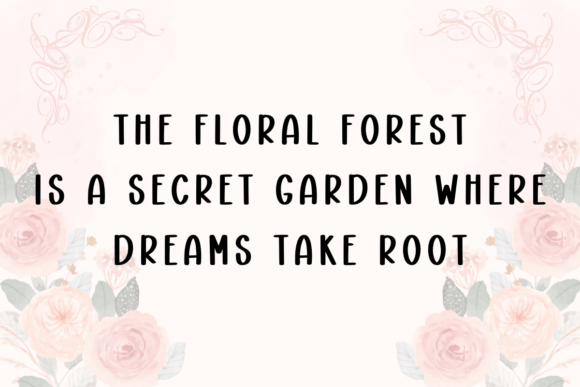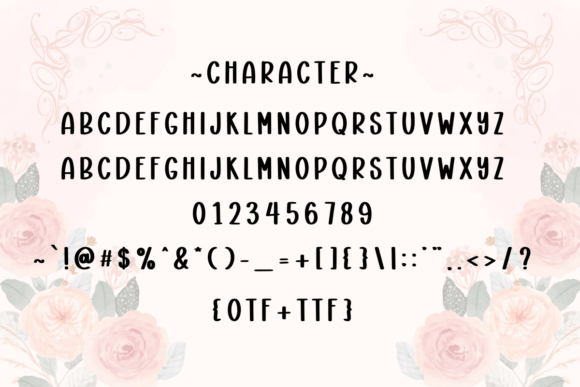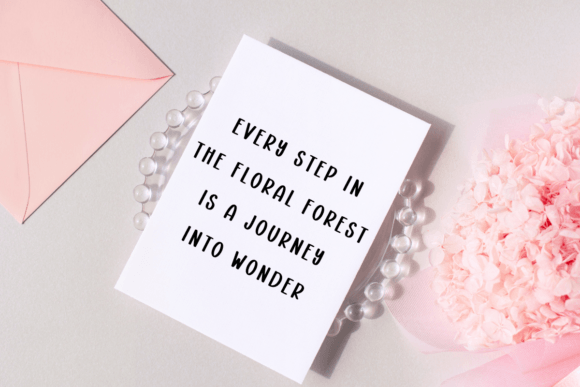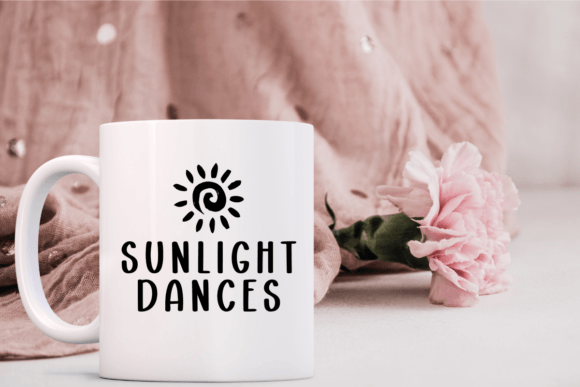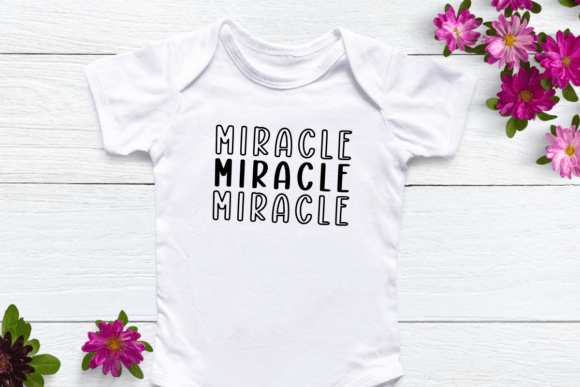
Introduction to Floral Forest Font
As a designer, have you ever found yourself stuck on a project, desperately searching for that one perfect font to bring your vision to life? I know I have! It was on a particularly frustrating afternoon, trying to finalize the design for a client’s new brand, when I stumbled upon the Floral Forest Font. Its unique blend of natural elements and clean lines immediately caught my eye, and I knew I had to learn more.
What I discovered was a high-quality, free download that has since become one of my go-to design resources. The Floral Forest Font is not just a pretty face – it’s a versatile tool that can be used in a wide range of creative projects, from logos and branding to digital art and even wedding invitations. With its transparent background and customizable options, the possibilities are truly endless.
Whether you’re a seasoned pro or just starting out, the Floral Forest Font is an absolute must-have in your design arsenal. Its natural, playful style makes it the perfect addition to any project, and its high-quality design ensures that it will always look professional and polished.
Key Features of Floral Forest Font
- Includes a range of unique floral and forest-inspired elements
- Great for use in digital and print design projects, including invitations, greeting cards, and posters
Honest Review: Floral Forest Font
I recently stumbled upon the Floral Forest Font, and I must say, it’s a beautiful addition to any design project. As a designer, I’m always on the lookout for high-quality fonts that can bring a touch of elegance to my work.
One of the things I love about the Floral Forest Font is its versatility. It can be used for both digital and print projects, making it a great resource for any designer. The font is also available for free download, which is a huge plus in my book.
Here are some things that work well with the Floral Forest Font:
- Its delicate, whimsical design makes it perfect for creative projects like wedding invitations or children’s book illustrations.
- The font comes with a transparent background, making it easy to overlay on top of images or other design elements.
- The high-quality design ensures that the font will look great at any size, from small to large.
One potential limitation of the Floral Forest Font is its limited character set. While it’s perfect for decorative text, it may not be the best choice for body text that requires a wider range of characters.
Overall, I’m really impressed with the Floral Forest Font. It’s a beautiful, high-quality design resource that’s perfect for any creative project. While it may have some limitations, I think it’s definitely worth checking out.
For the best results, use the Floral Forest Font in conjunction with other design elements that complement its natural and whimsical style. Experiment with different font sizes, colors, and arrangements to create a unique and eye-catching design. Don’t be afraid to get creative and try new things!
The Floral Forest Font is perfect for a variety of creative projects, including wedding invitations, baby shower decorations, and garden-themed designs. Its high-quality design and transparent background feature make it an ideal choice for any project that requires a touch of elegance and sophistication.